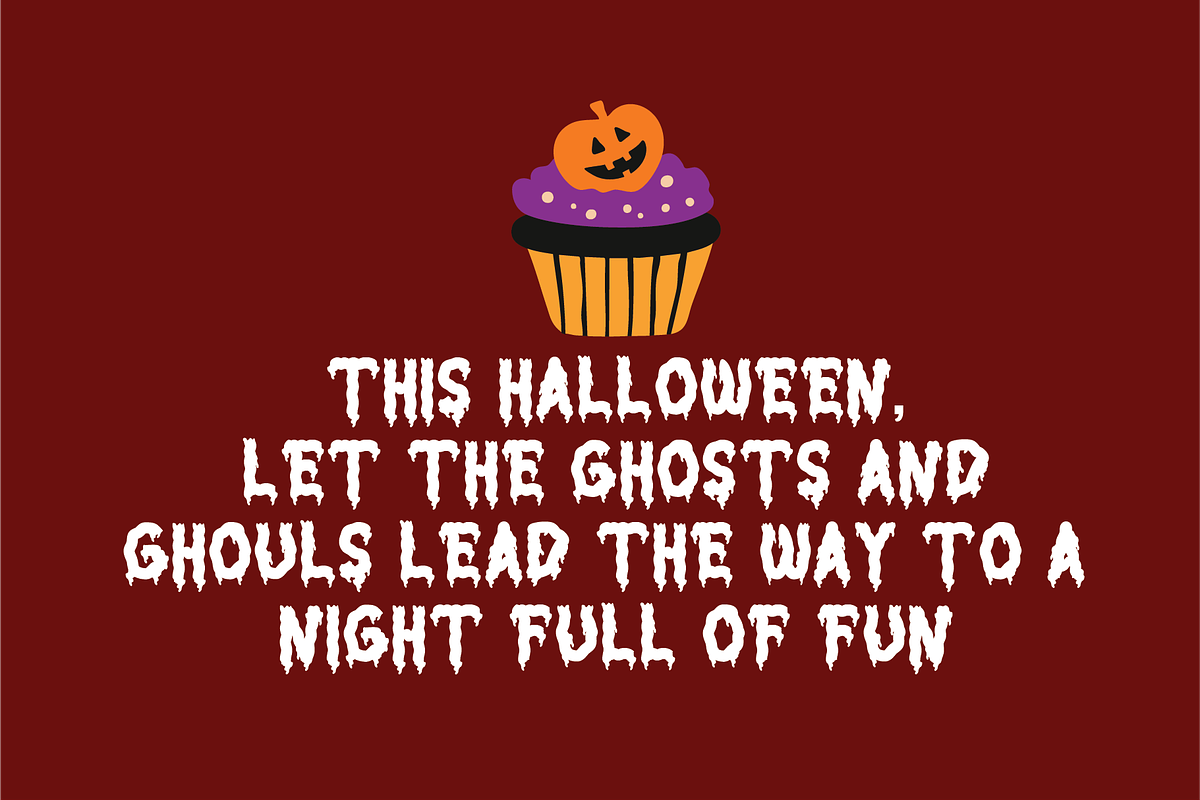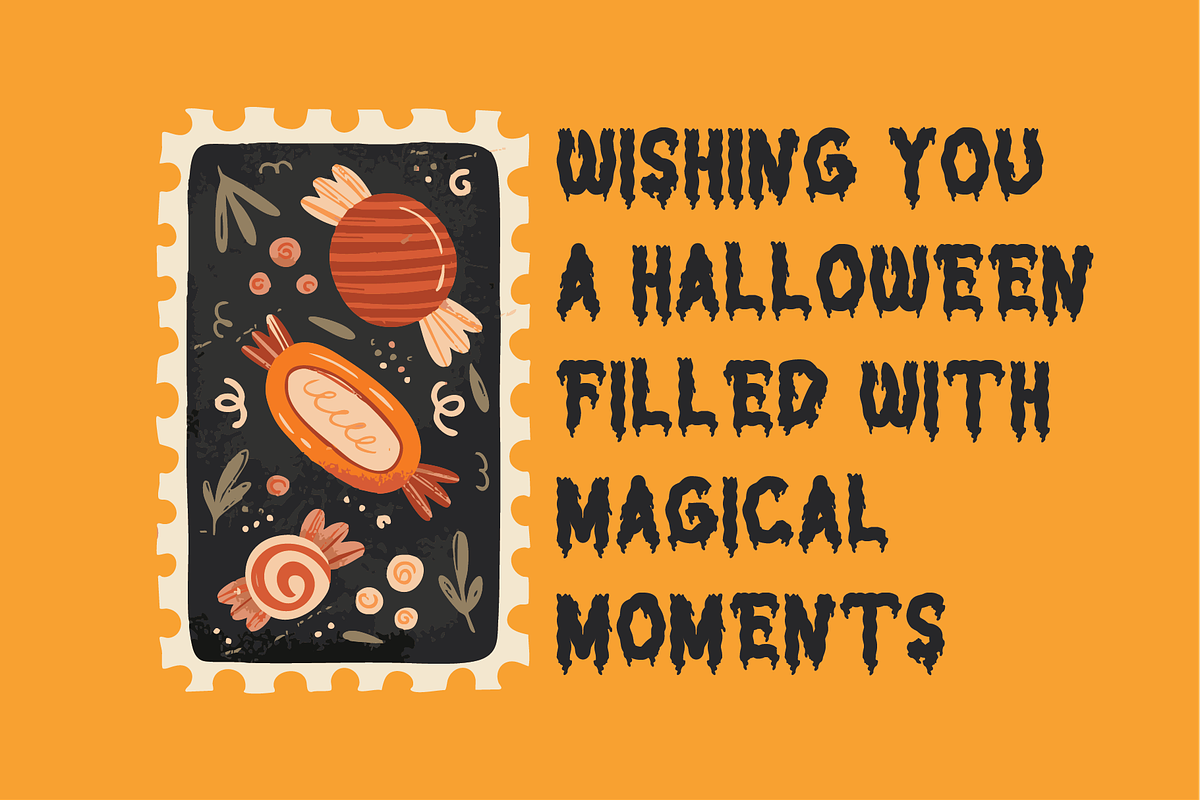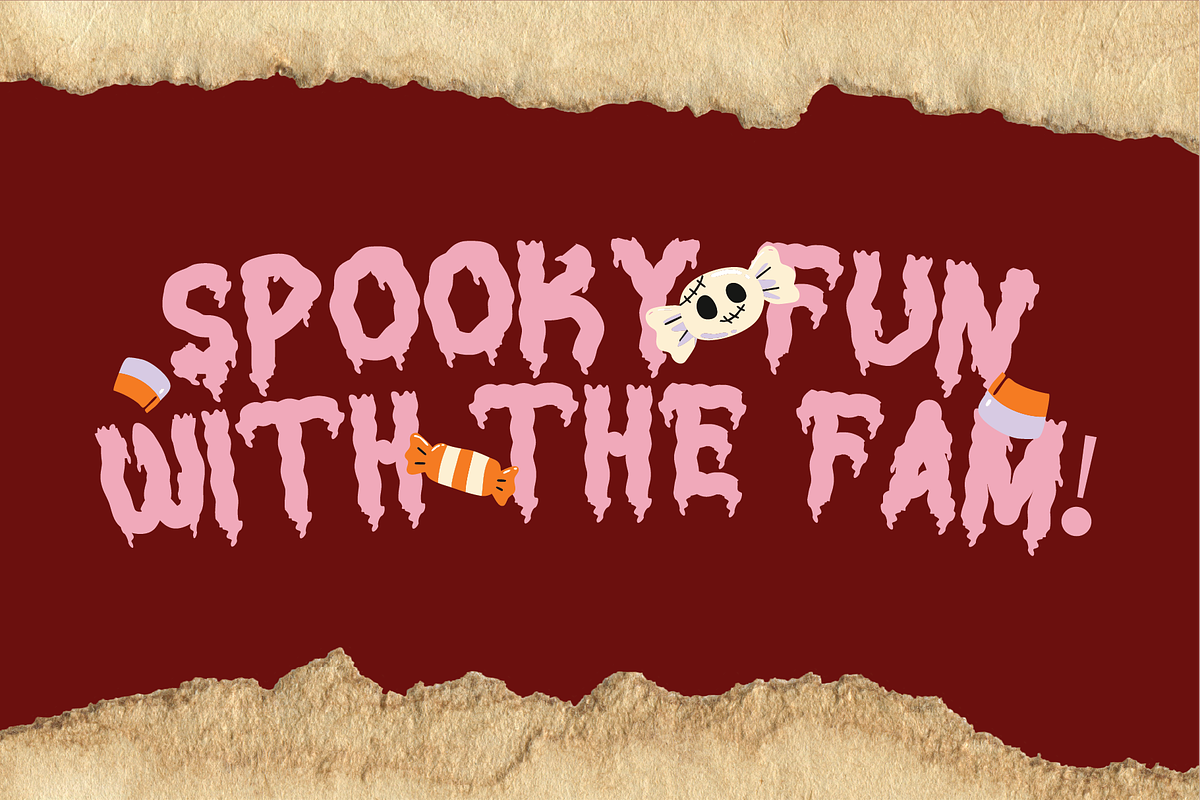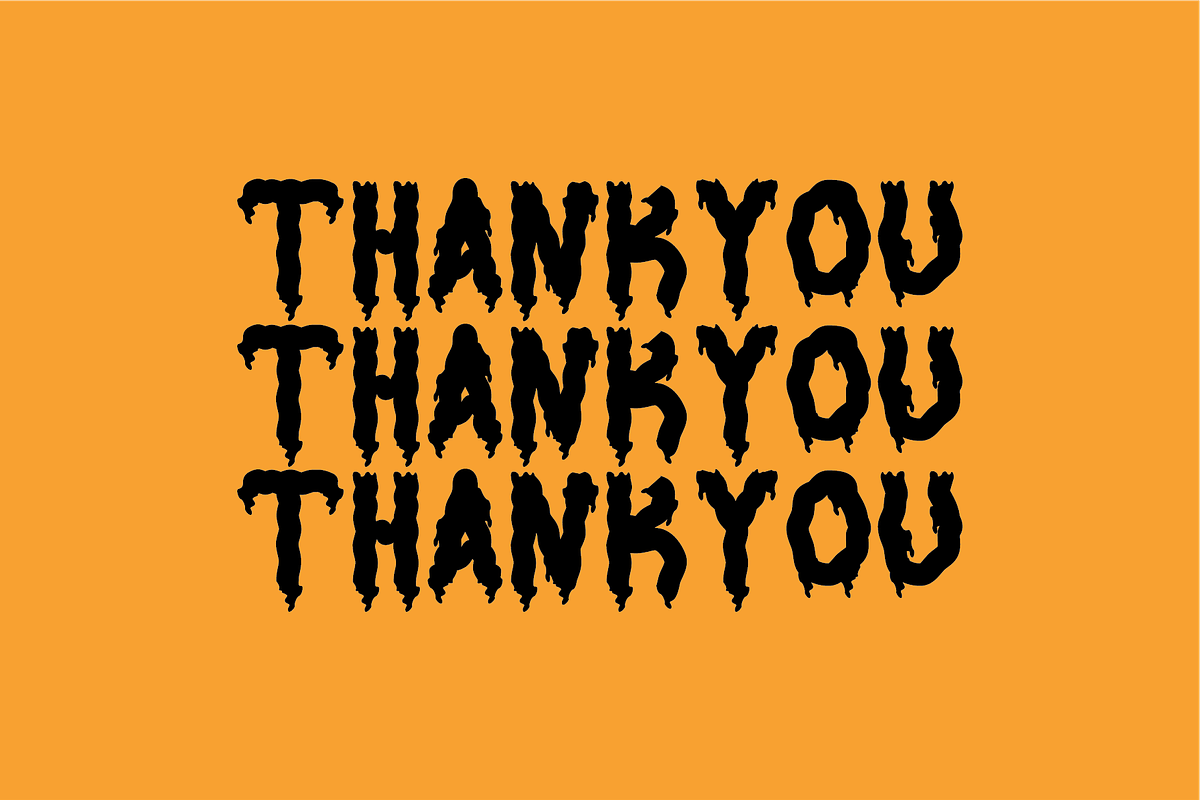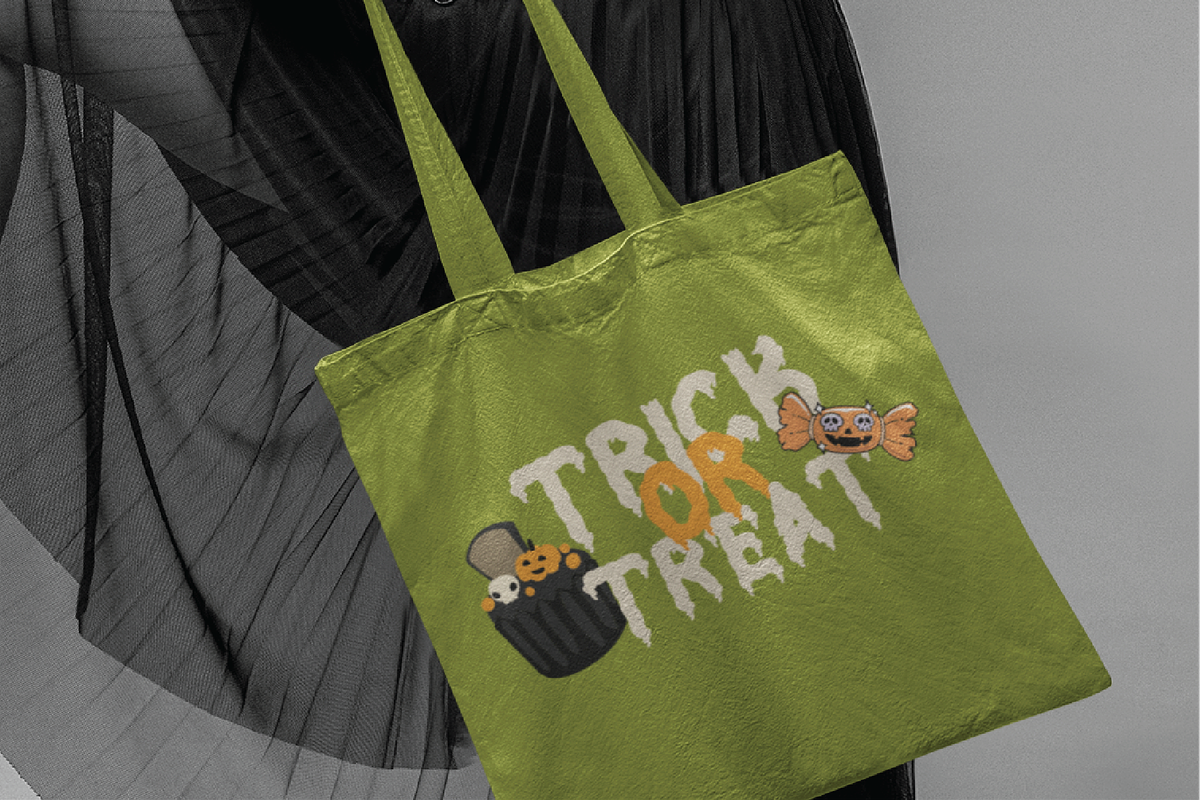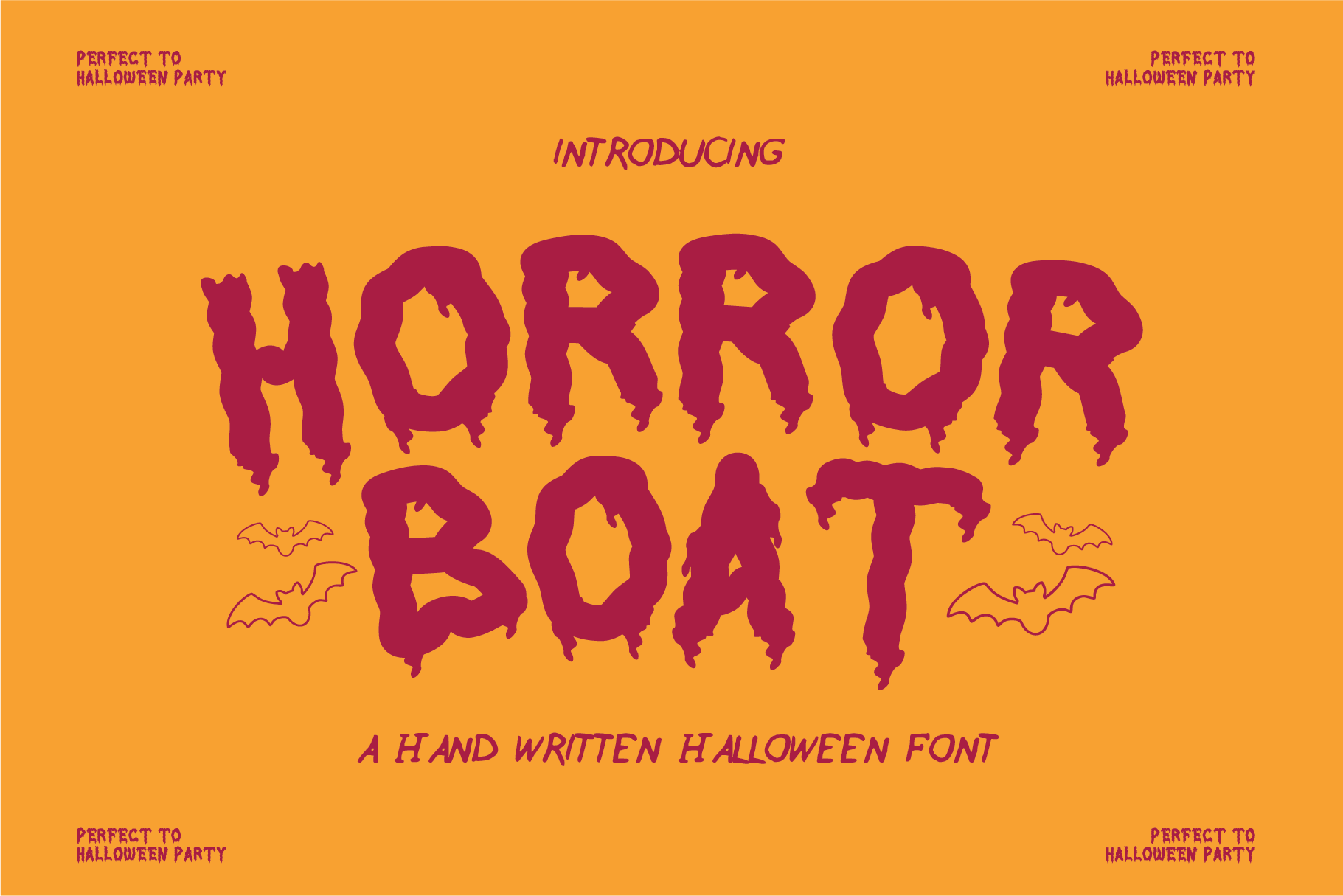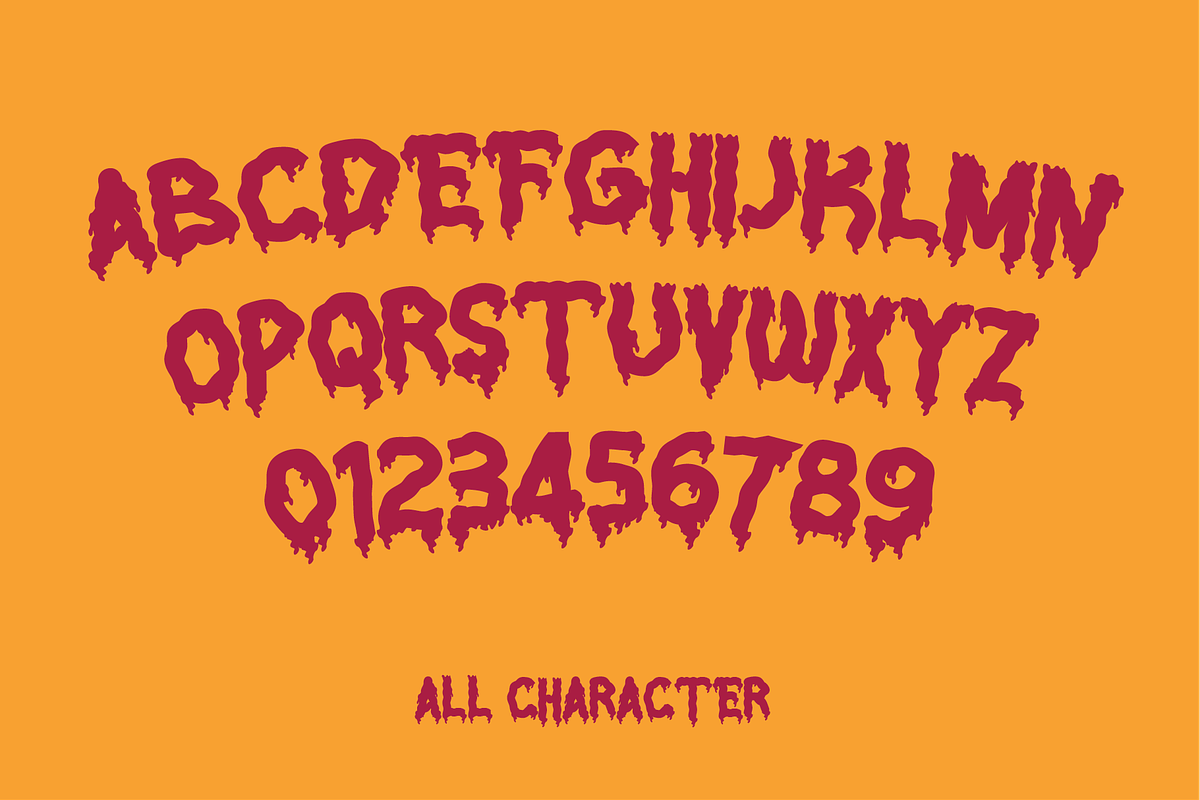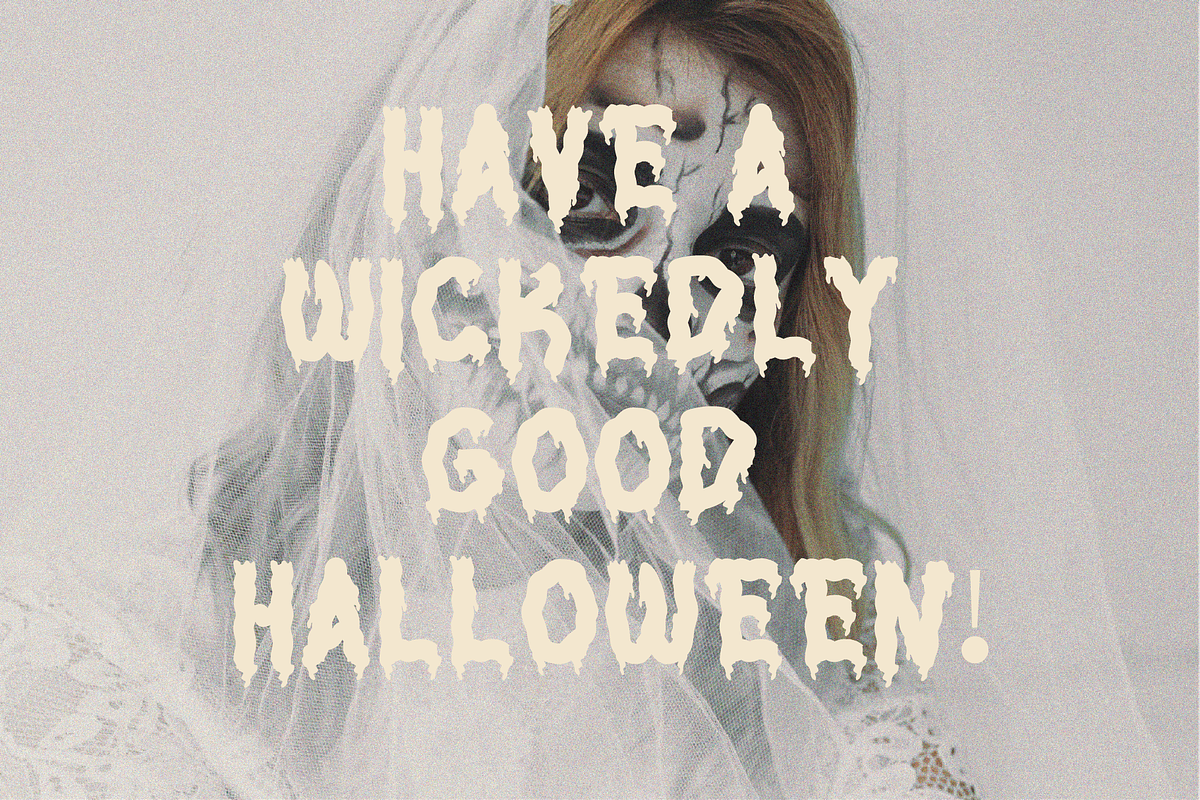
Horror Boat | Halloween Font
Horror Boat The font features bold, dripping letters that resemble blood or goo, giving it a spooky and sinister appearance. The irregular shapes of the letters and the dripping effect evoke a feeling of horror, making it perfect for Halloween or horror-themed designs.